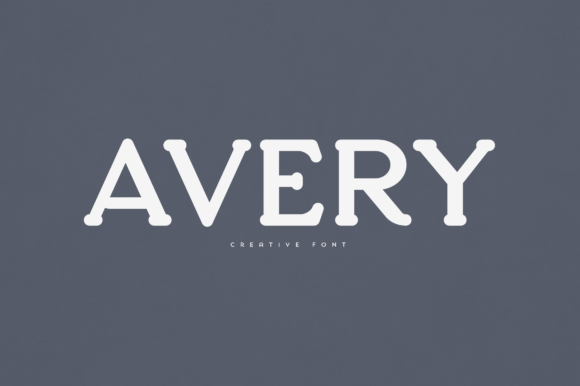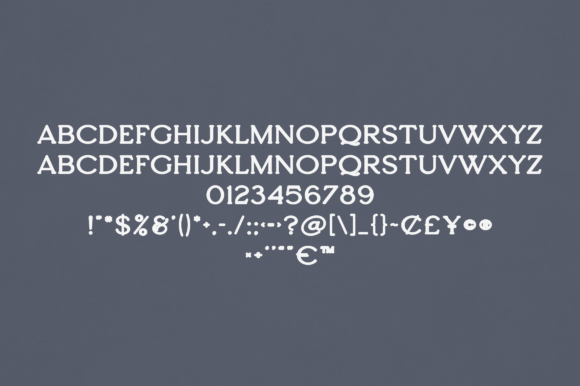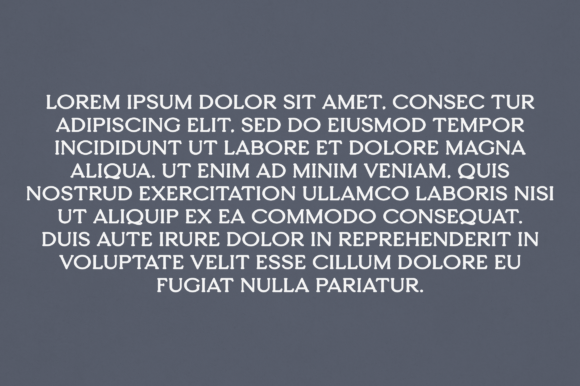
Avery
About Avery
Avery is an elegant and versatile font that will make your typography truly unique! It will enchant every logo, branding, headline, or plain text!